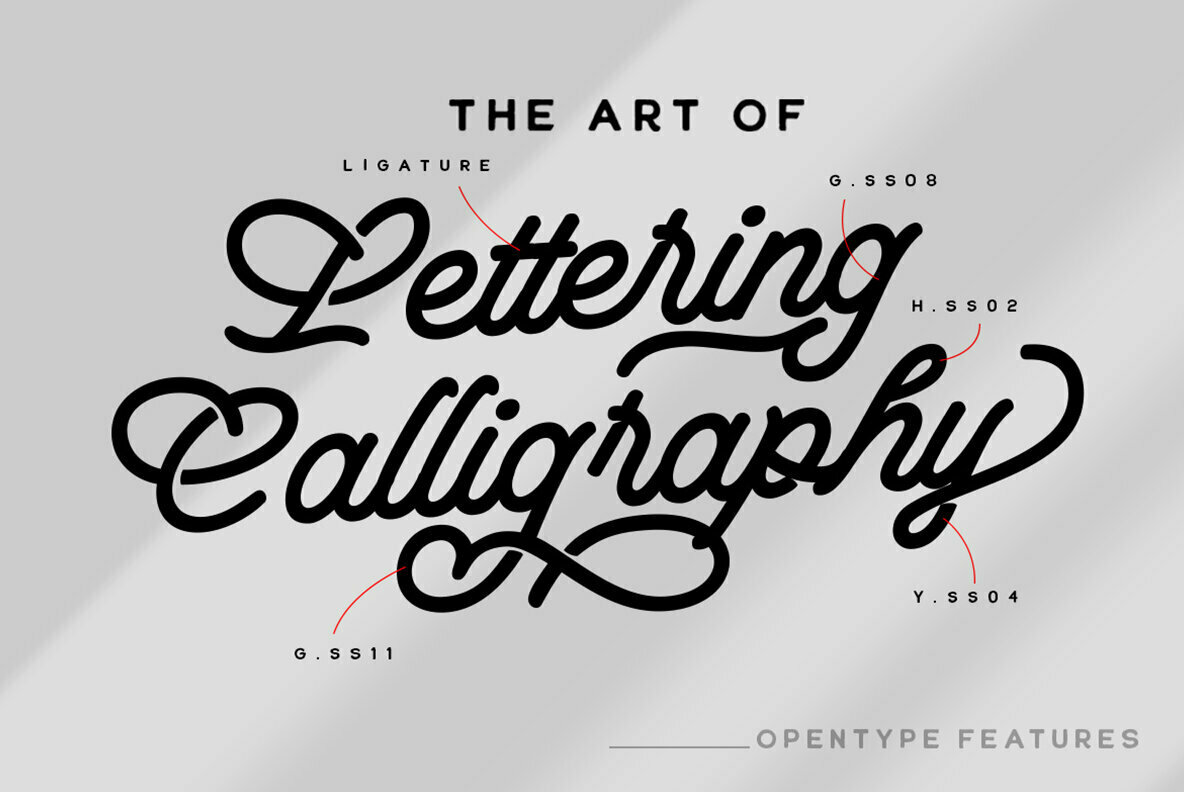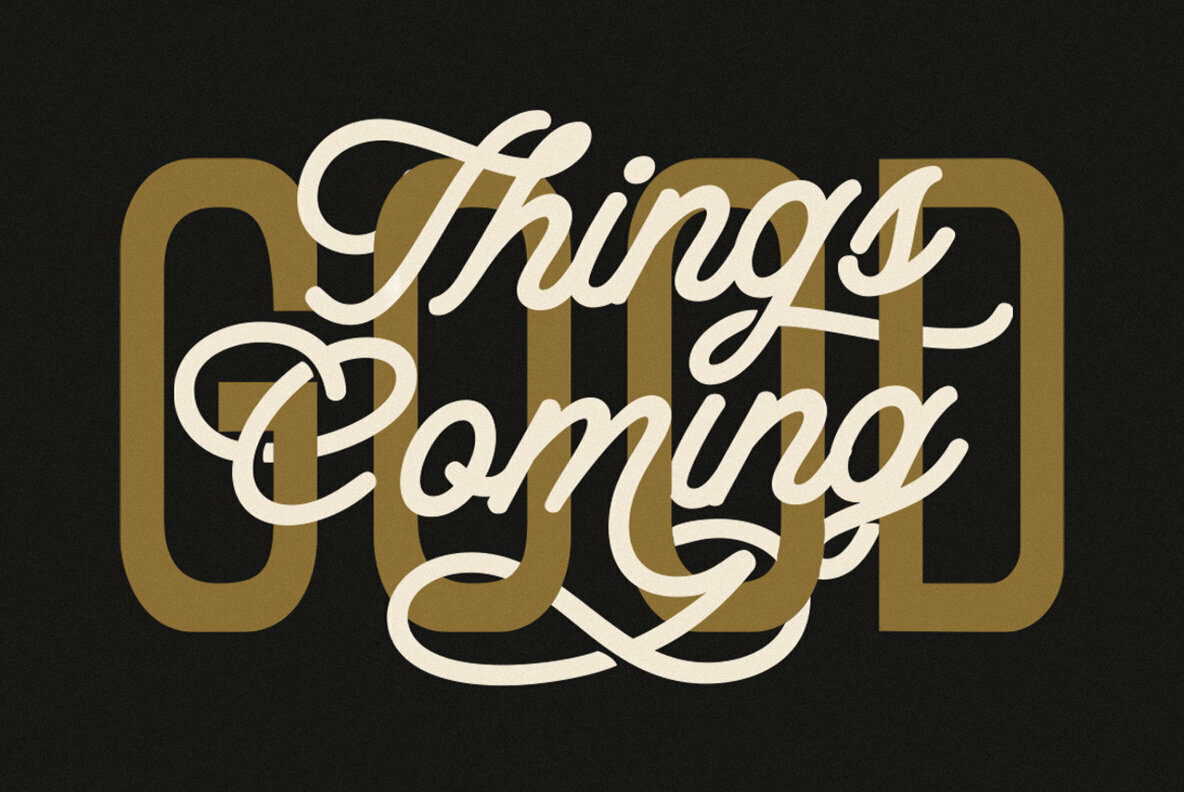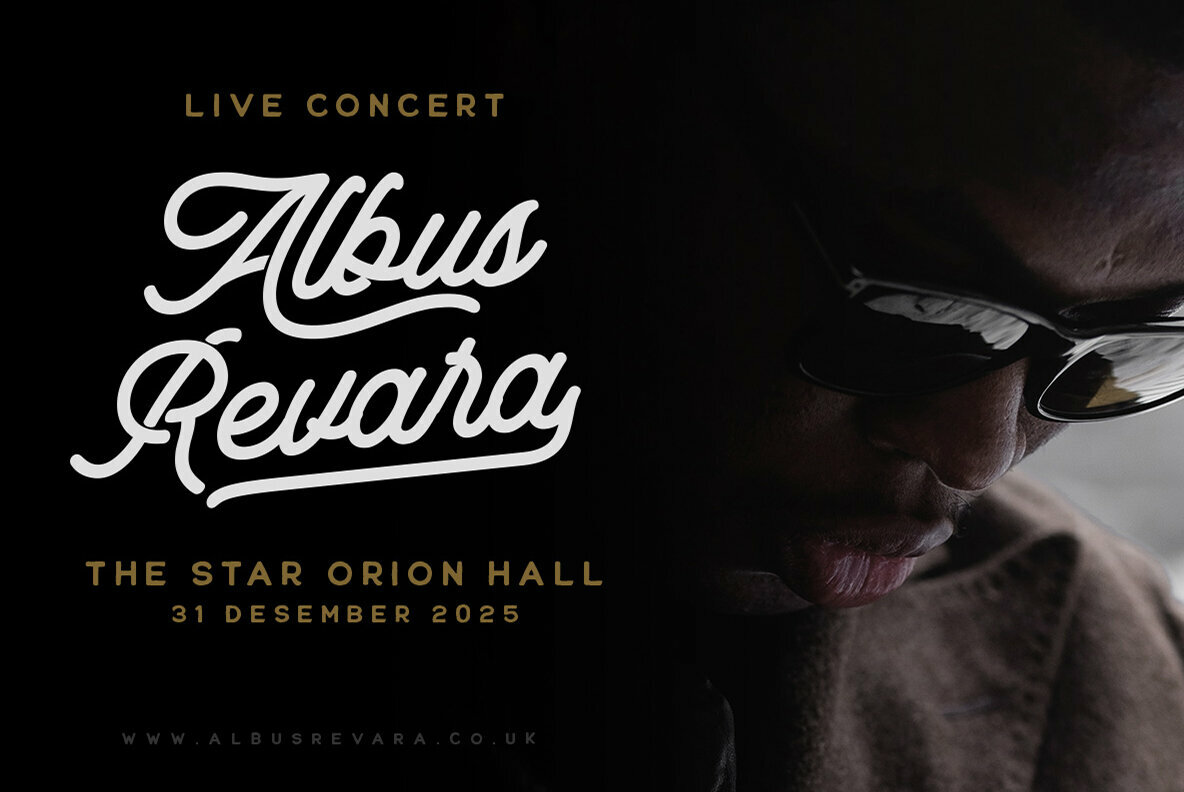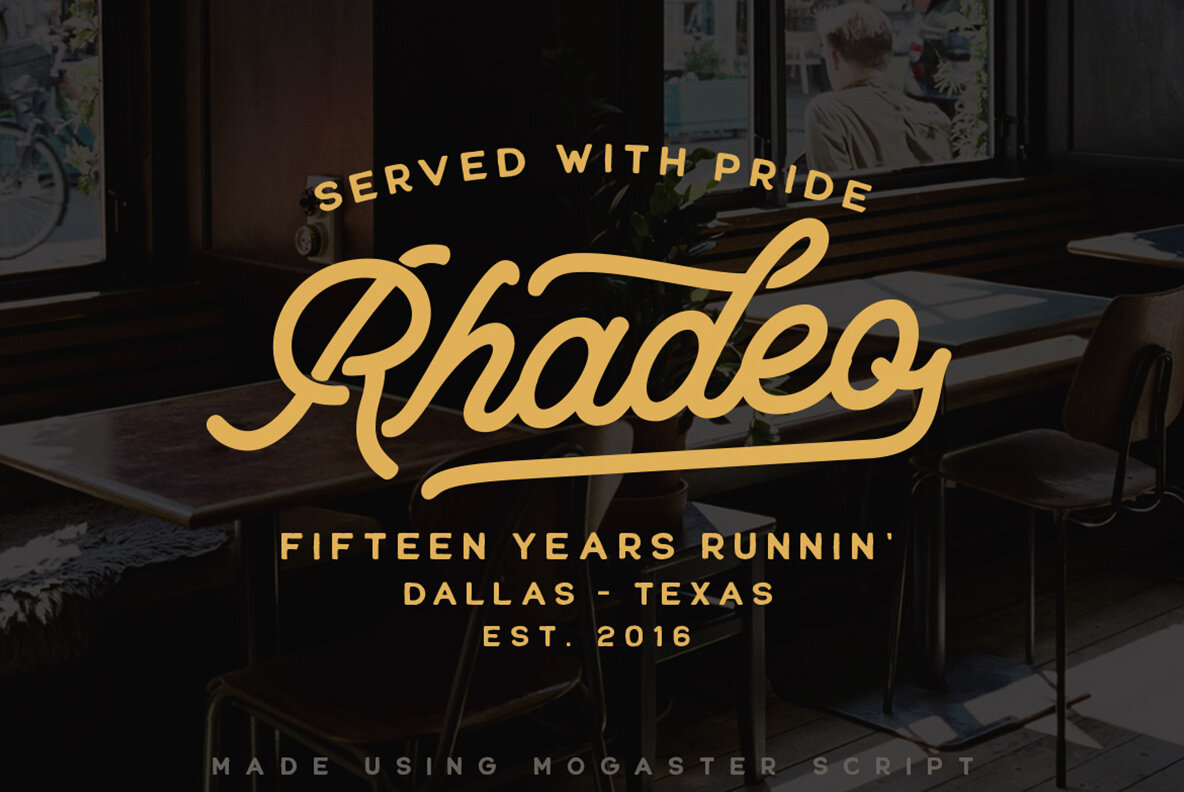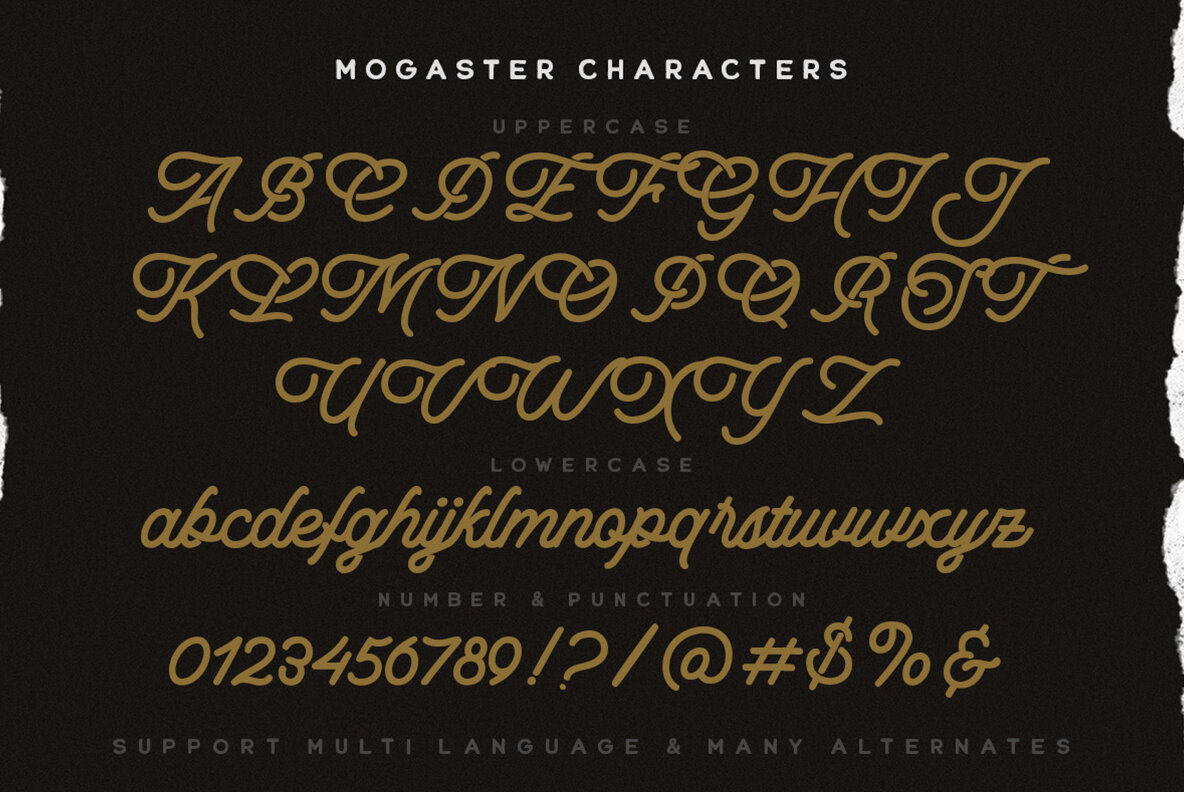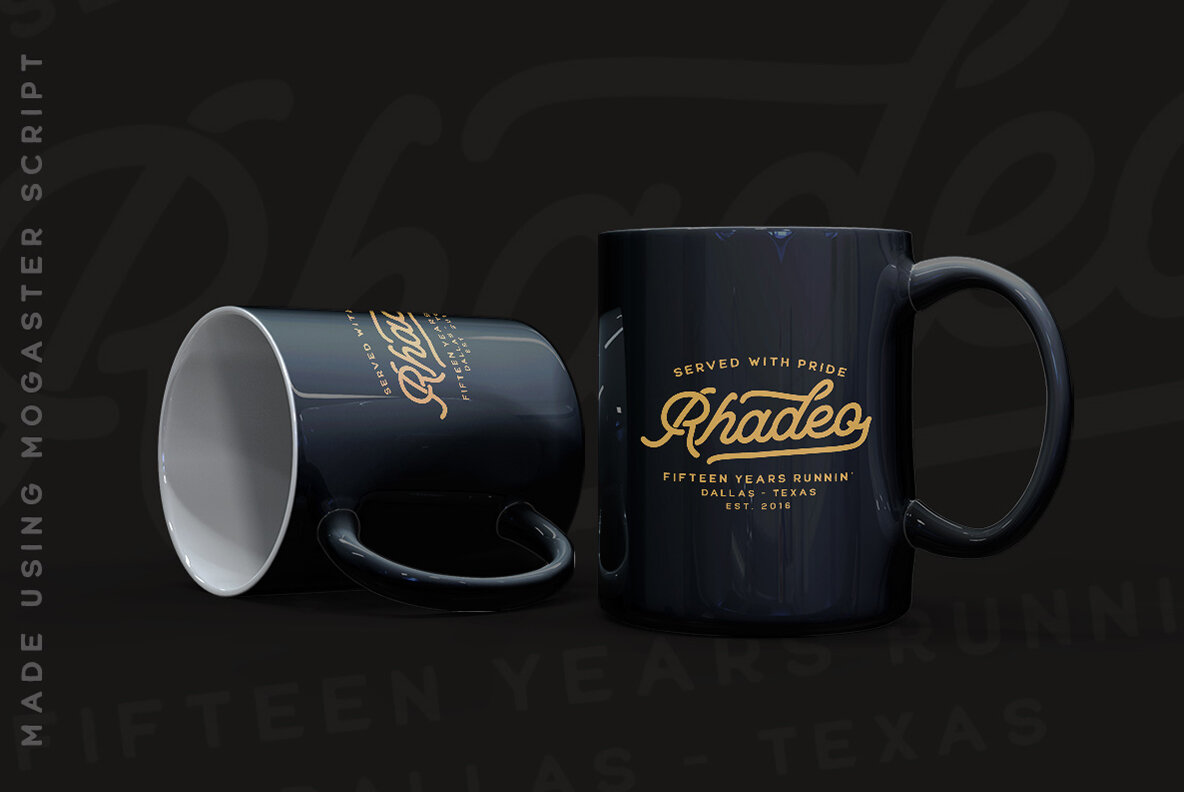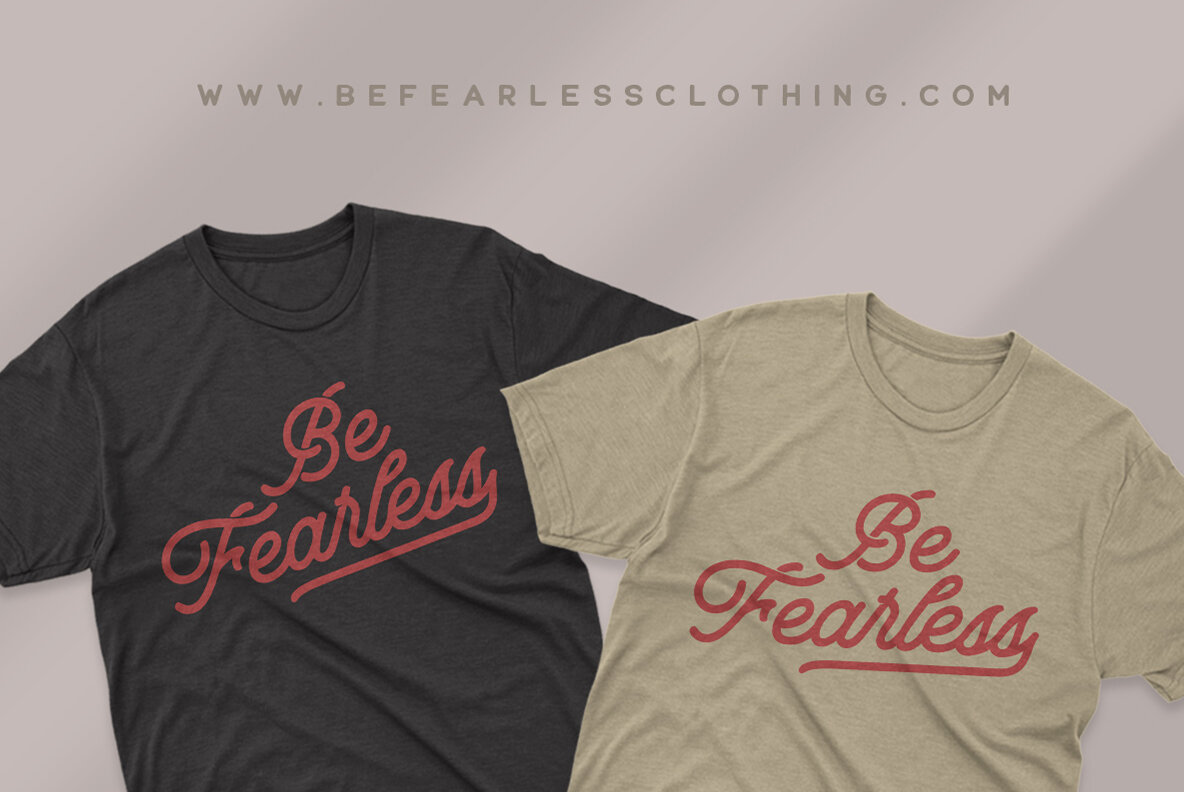
The Mogaster Font
Mogaster Regular
Mogaster Edge
Mogaster Rough
The Mogaster by Letterhend Studio embarks as a robust monoline script, layered with a vintage aesthetic. Offered in three distinct styles, this typeface is a quintessential choice for logos, headlines, signage, and formal designs like invitations and labels. Its versatility extends to magazines, books, greeting cards, packaging, fashion, and any advertising ventures. Consider utilizing programs that accommodate OpenType features and Glyphs panels, like Adobe applications and Corel Draw, to unlock the full design potential of The Mogaster.The Mogaster: Bold Monoline Script with Vintage Appeal